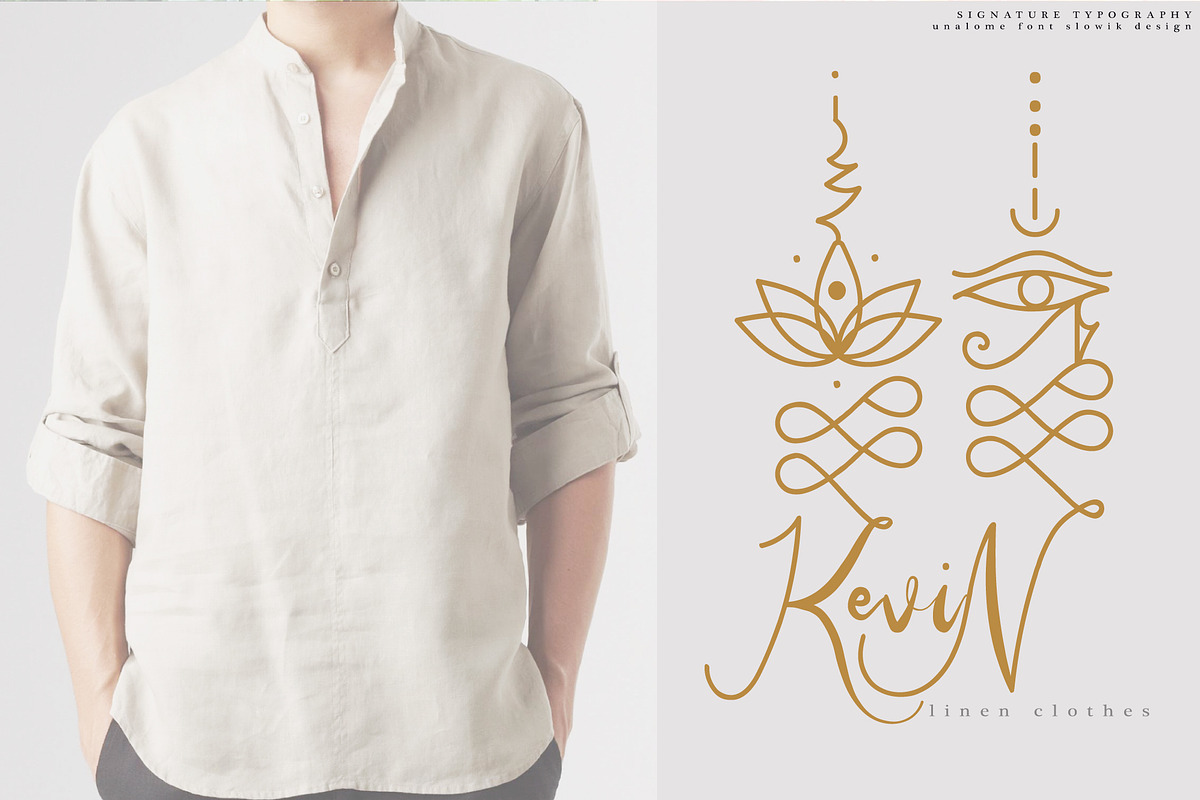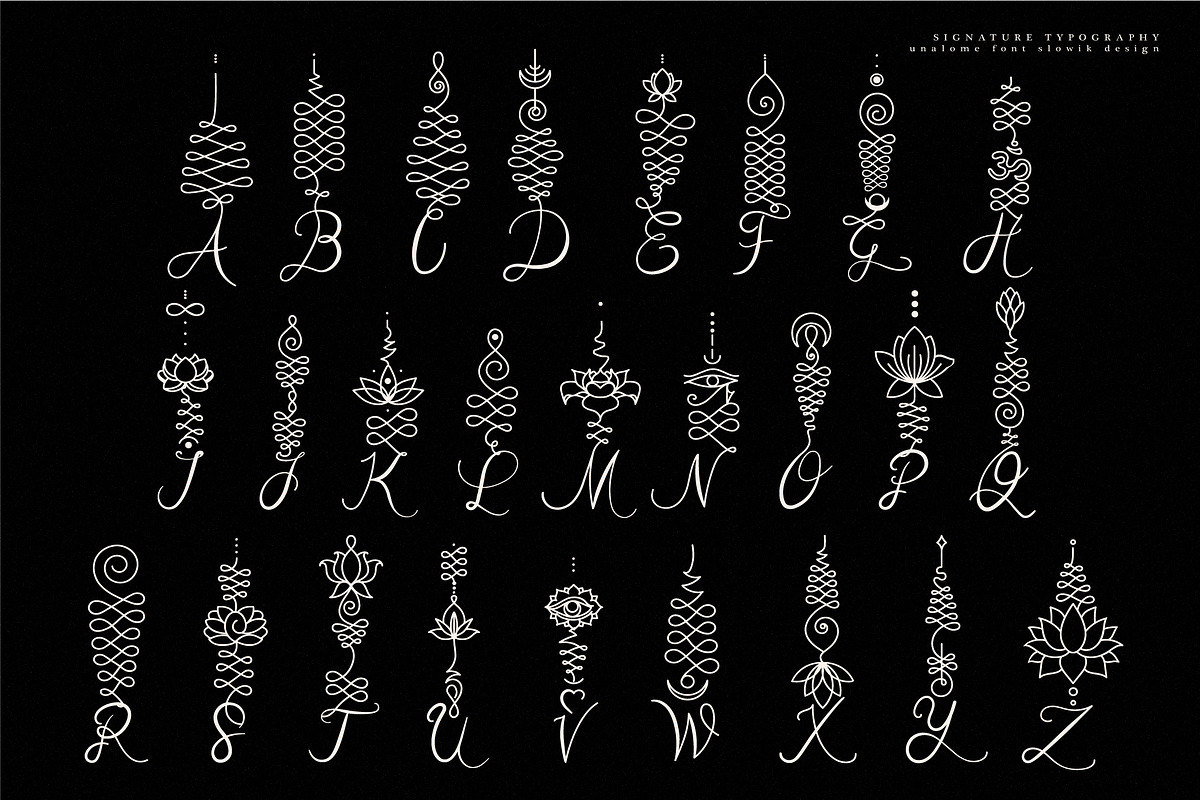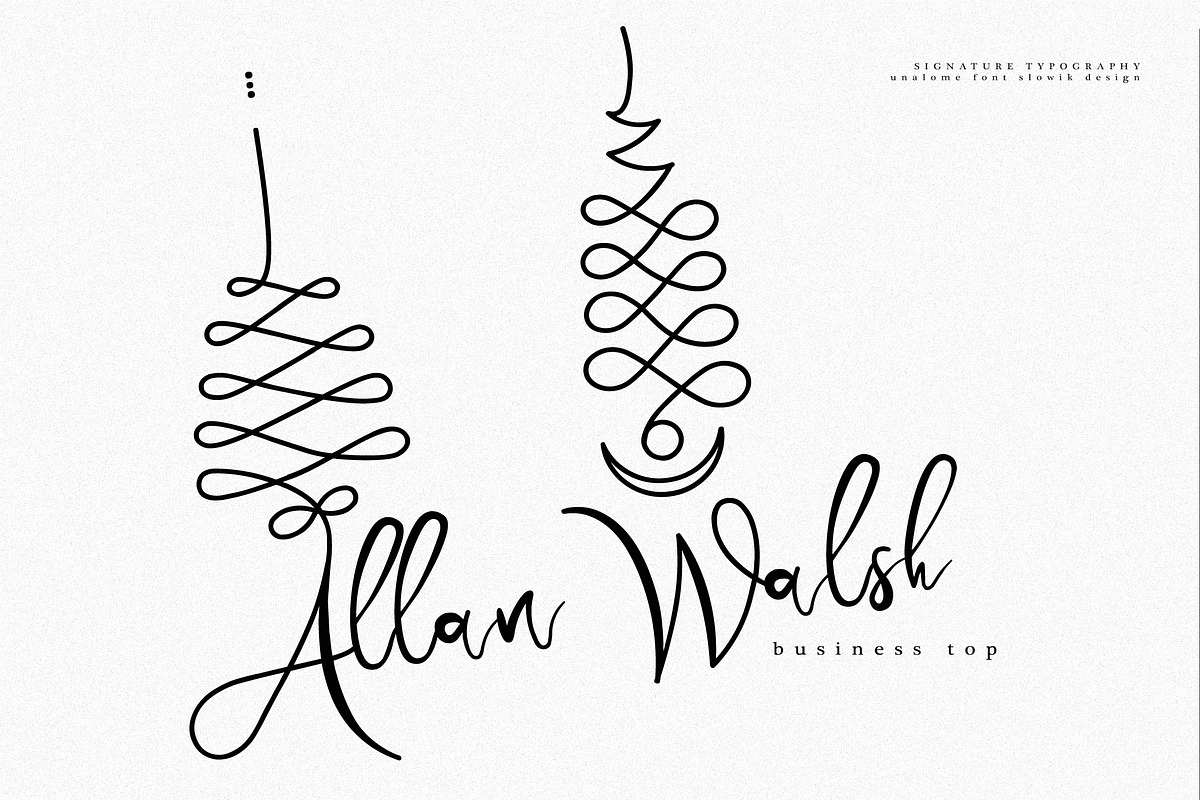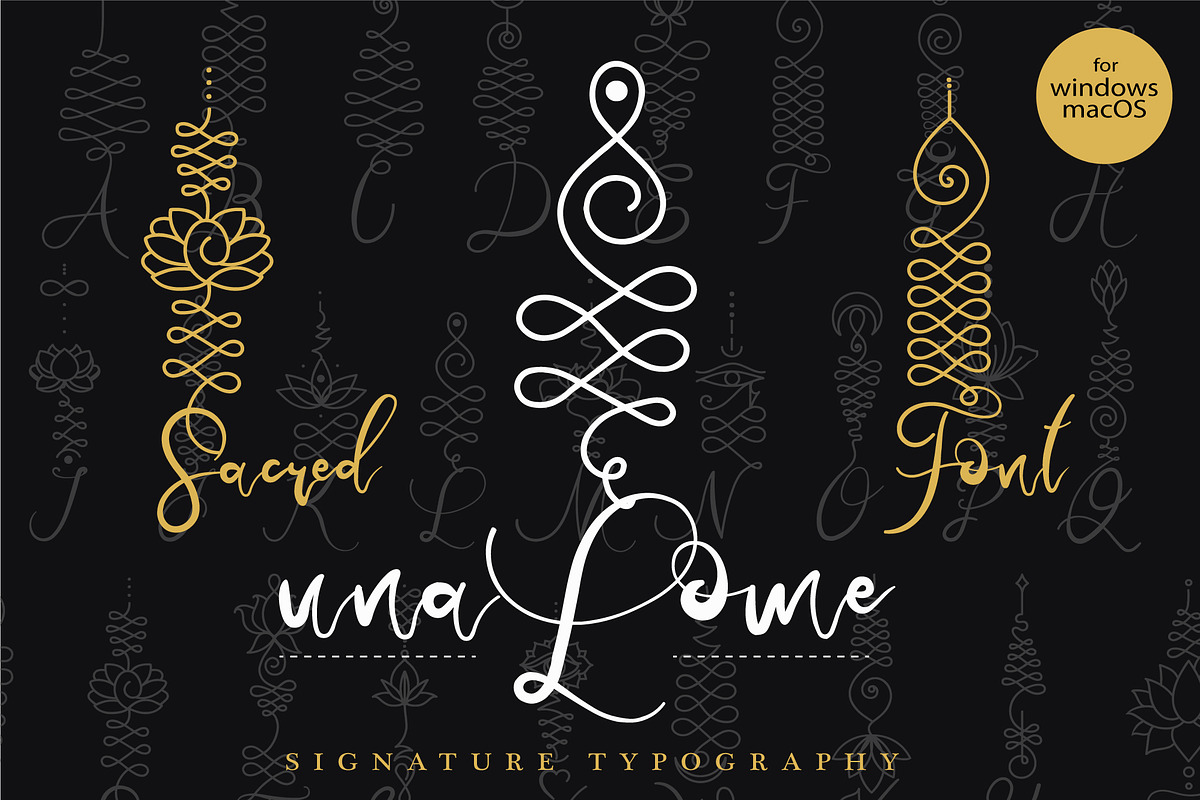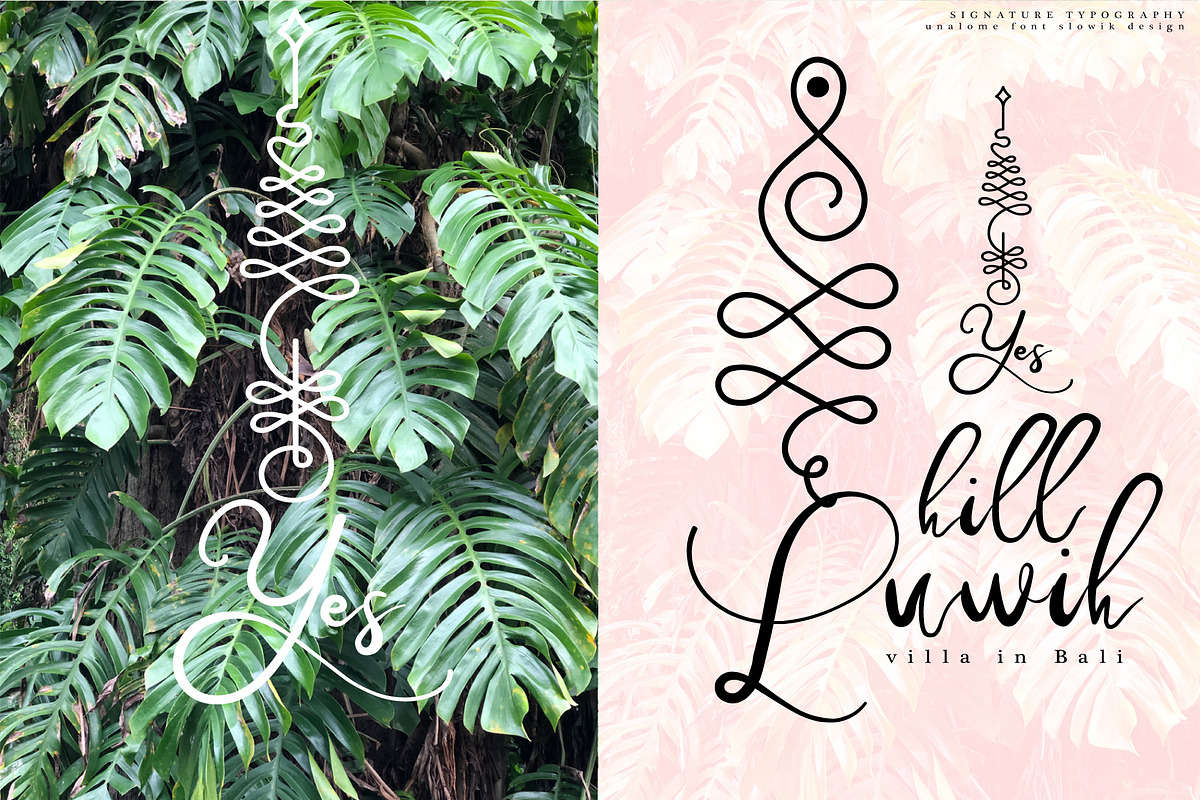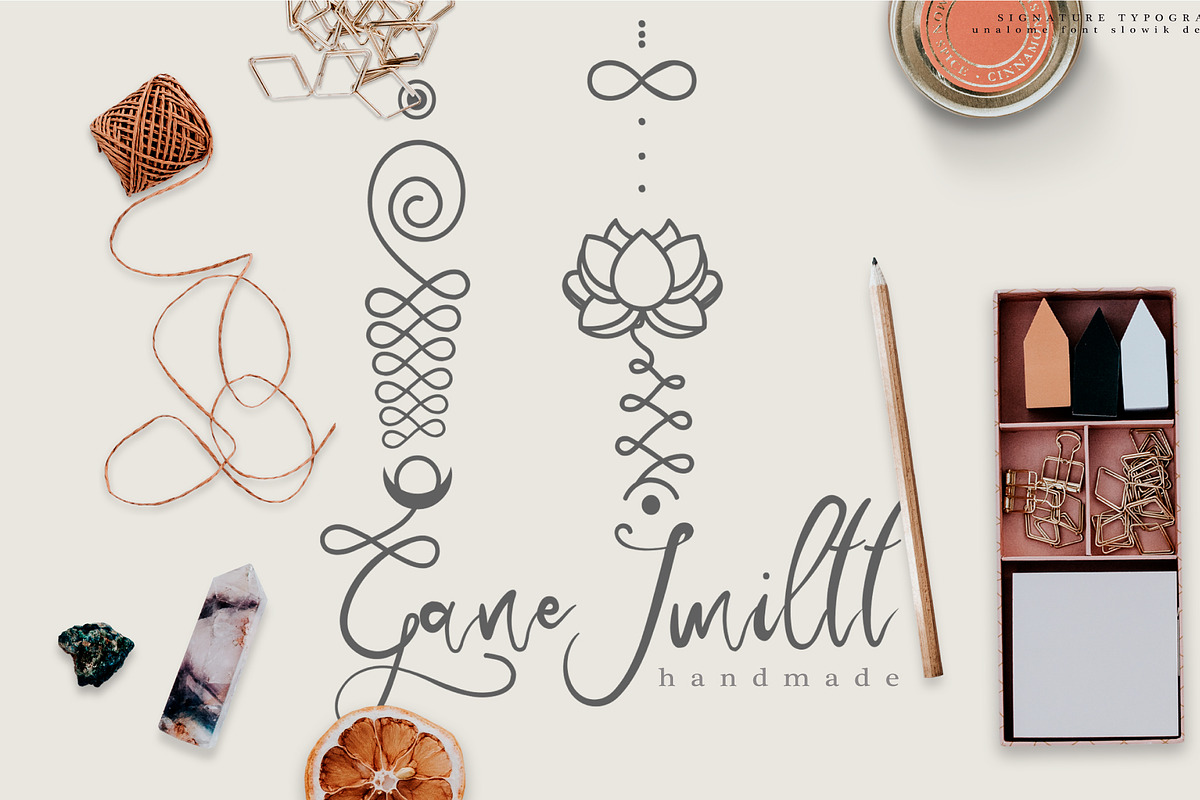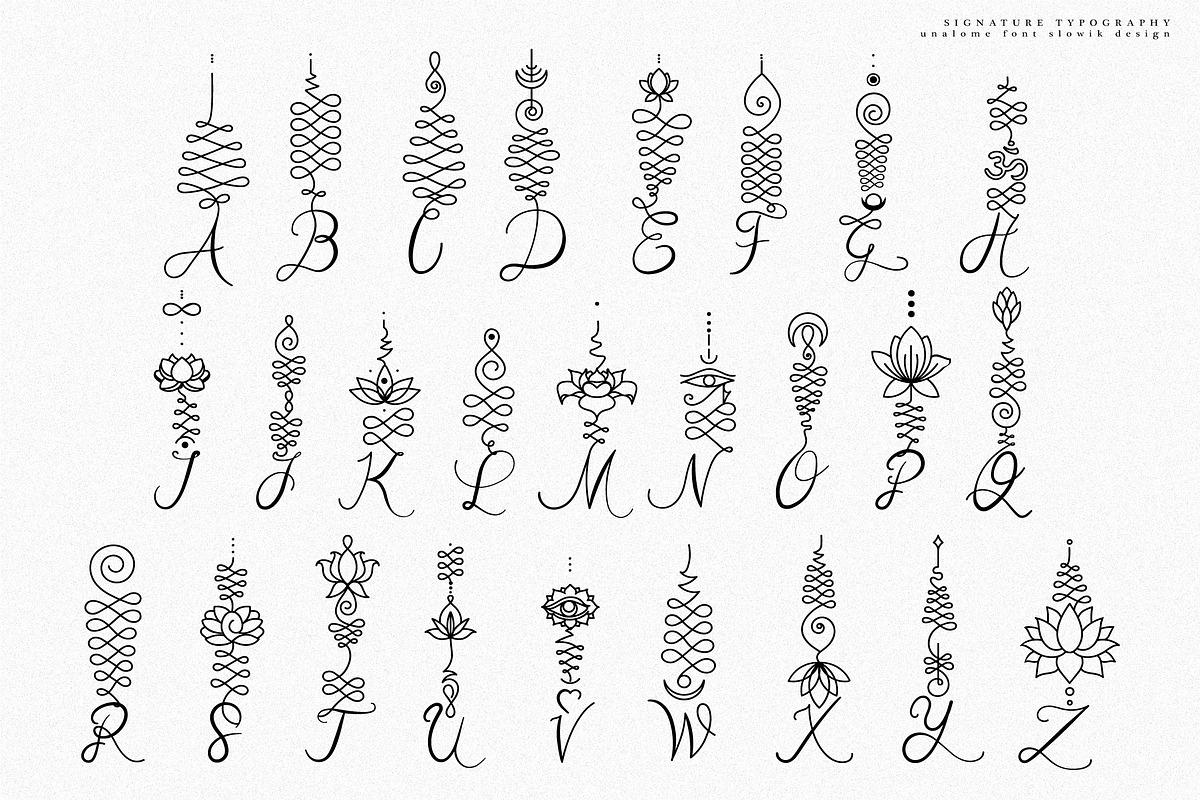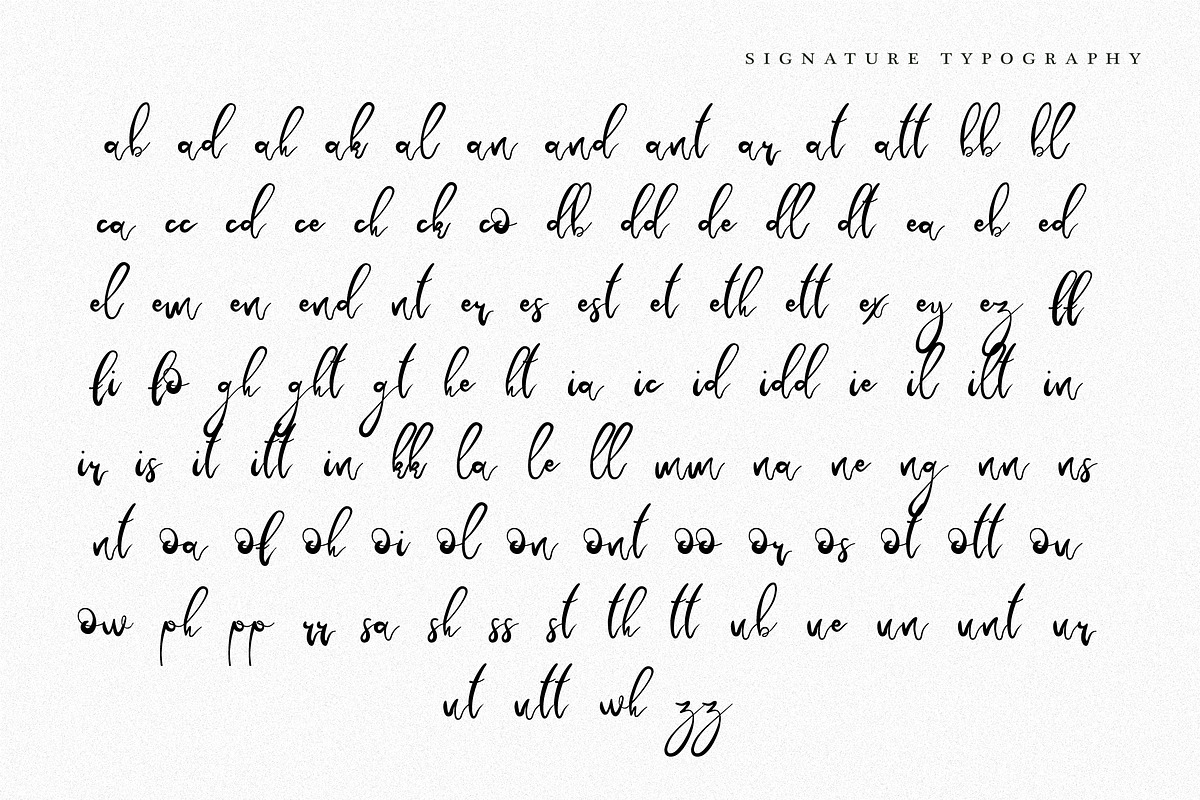
Unalome Sacred Font
Unalome Sacred Font .... I always wanted to create a unique font that is not like any other. At the same time, for many years I have been studying various esoteric signs and symbols.
This is how the Unalome font was born. Unalome is a great Buddhist symbol, which means help and striving on the path to spiritual growth and development, connection with the spiritual realm and help of higher powers. Each capital letter in the combination of the character gives a special quality of a particular character.
Also, small letters have a handwritten look that perfectly complements the capital letters and gives a unique effect. Handwritten letters are completely connected with each other, which is extremely difficult to achieve. The letter must be written from one point and return to the same point. I did this work and connected all the letters to each other, and it gives the full feeling of a live copy.
The font is supplemented with numbers and punctuation marks. This unique font simply must be in your collection, it is perfect for any typography, branding, logo, etc. It will make your project special and unlike anything else. It will decorate any wedding card and letter, invitation, business card, part of the logo. The font will make it nice and special everything you do with it.
The Unalome is originally a hindu symbol that graphically recalls Shiva´s third eye and it represents wisdom and the path to perfection. Spiral indicates the beginning of the path, without the knowledge or a clear direction, learning through the inevitable mistakes. It finally becomes a straight line and leads to enlightenment, often represented as a point or a circle (sun) or lotus. The lotus flower symbolizes overcoming hardships to perfection, thereby integrating a sense of Unalome.
- The font is supplemented with numbers and punctuation marks.
Unalome Sacred Font by Aleksandra Slowik fits naturally into Branding, posters, packaging, typography.